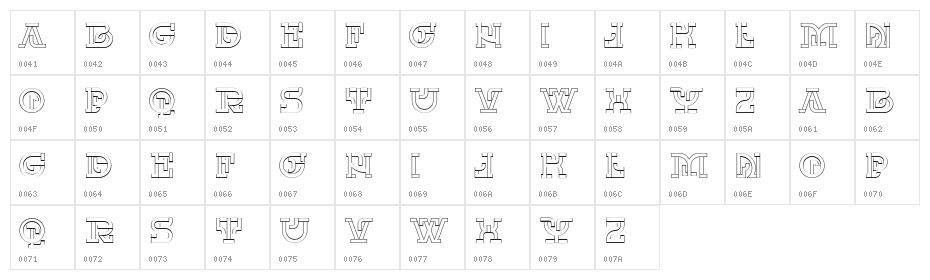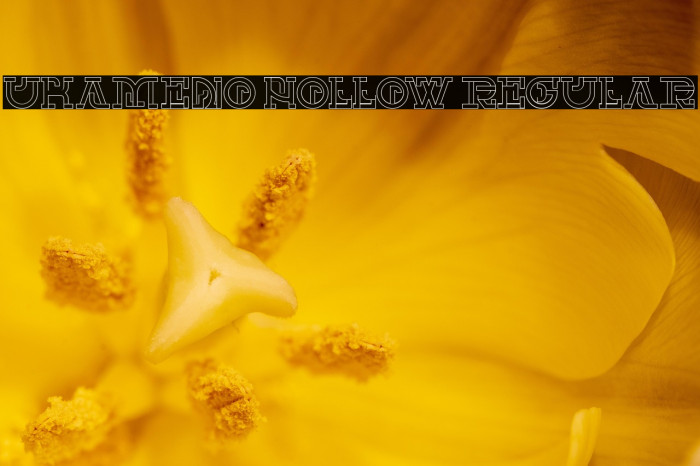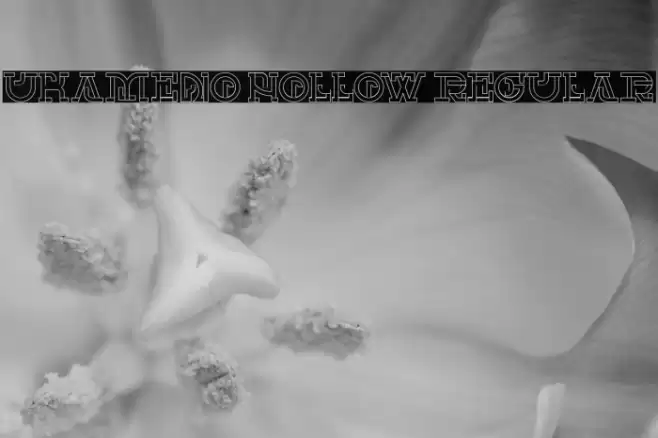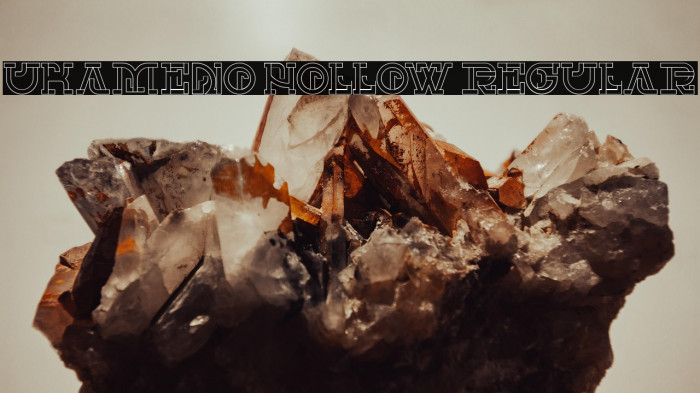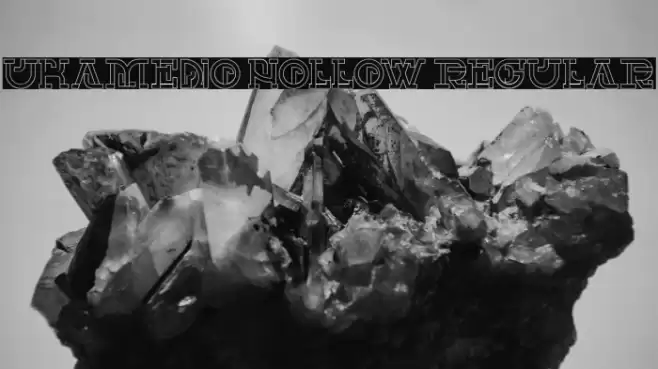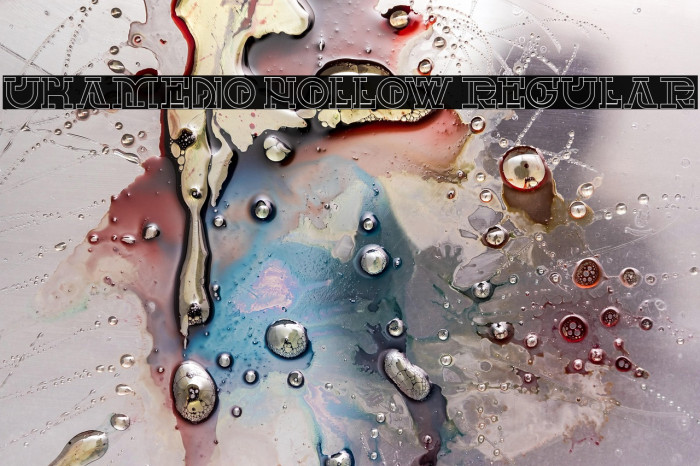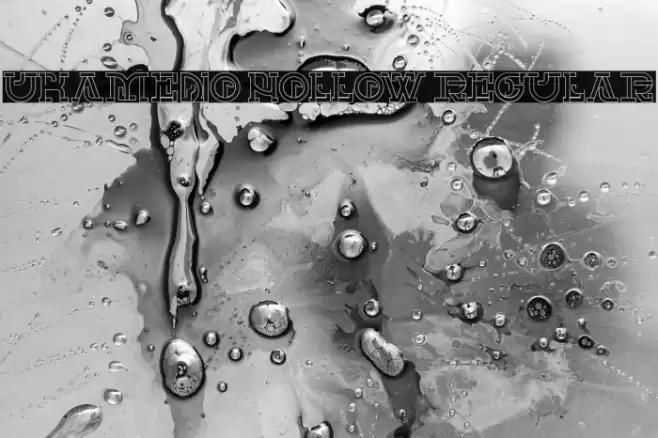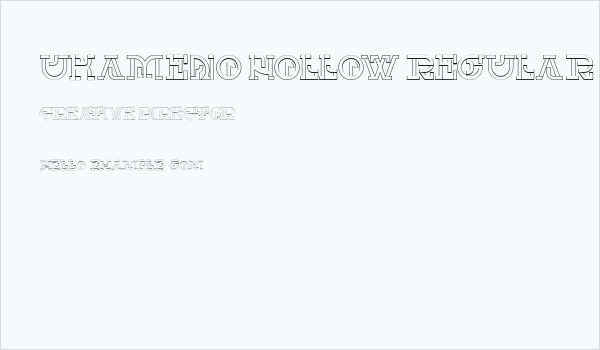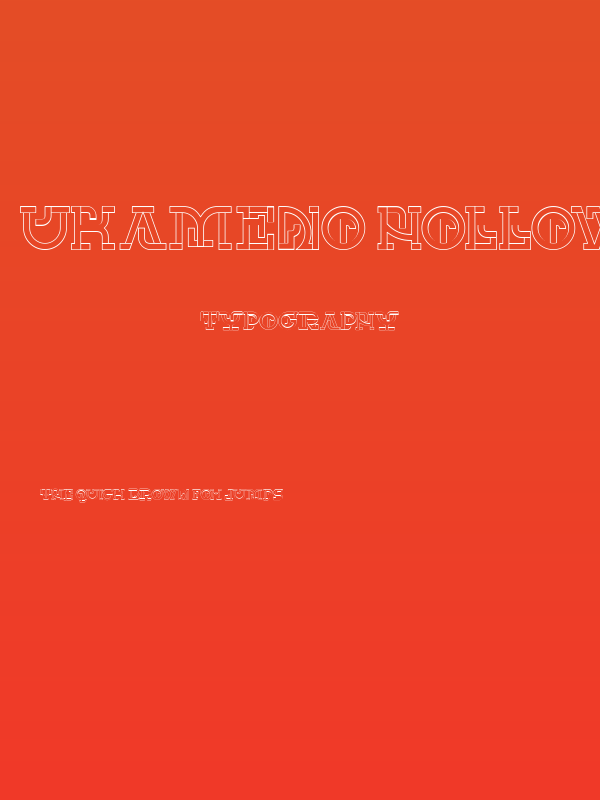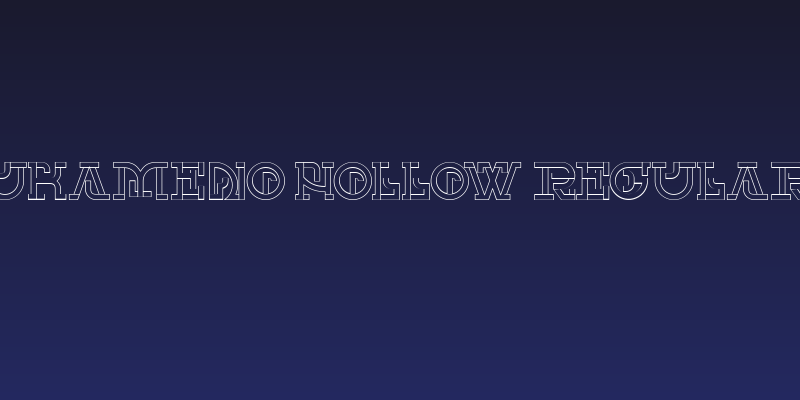
UKAMENO Hollow Regular Font
UKAMENO Hollow Regular Description
This font features a unique hollow design with a geometric and structured appearance. The characters are outlined, giving them a three-dimensional effect that stands out. The style is bold and eye-catching, making it suitable for creative and modern design projects. The uppercase and lowercase letters maintain a consistent style, with clean lines and sharp angles. The numerals and special characters follow the same design principles, ensuring uniformity across all glyphs. This font's distinct hollow effect adds a layer of depth and sophistication, making it ideal for projects that require a striking visual impact.
| Proposed Projects | Ideal for posters, logos, headlines, and branding materials that require a modern and impactful look. |